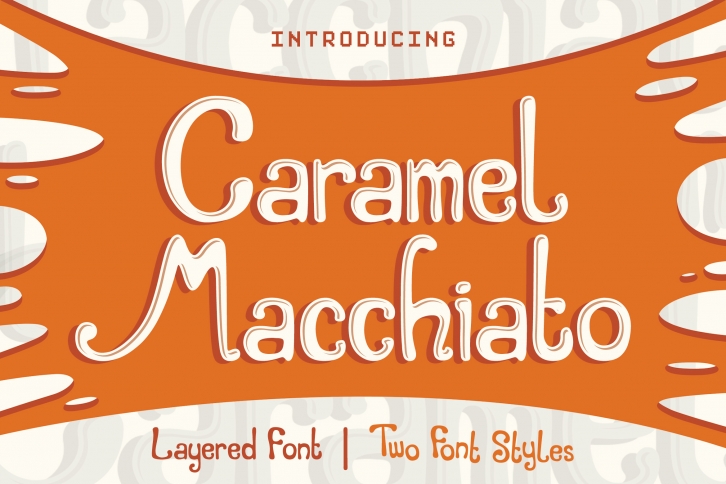
Caramel Macchiato is a beautiful font that was designed by Orenari. It's a great choice for designers and creatives who need such a font. It was released on July 15, 2019 and the file size is 4.15 MB. Caramel Macchiato may give a more youthful, expressive and casual look to your project. It is a very beautiful, refined, elegant, and high-quality font.